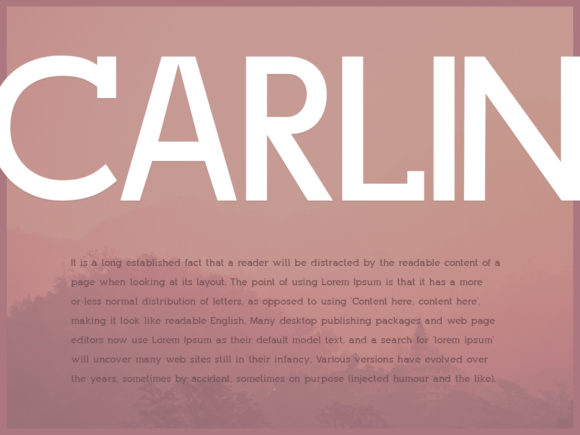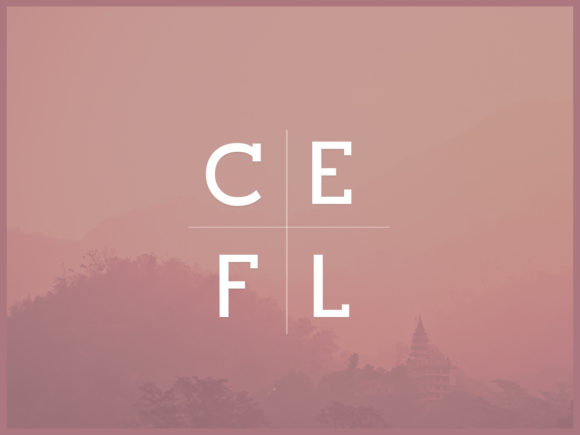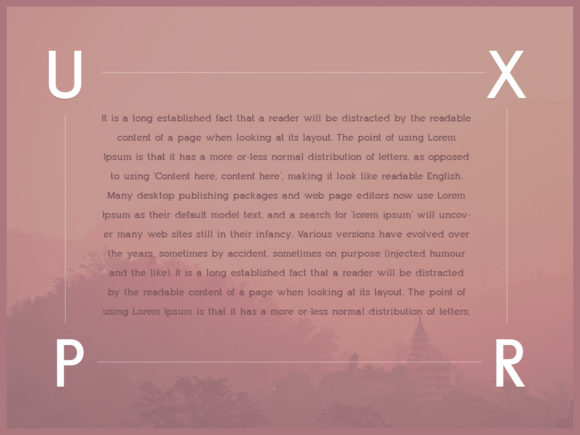
Introducing Carlin Font: The Ultimate Display Font for Bold Designs
Are you tired of using the same old fonts in your designs? Look no further than Carlin Font, a cool, bold, and imposing display font that’s sure to elevate your creations to the next level. With its unique and striking appearance, Carlin Font is an incredible asset to any font library, and we’re excited to dive into its features and benefits.
The Power of Carlin Font
Carlin Font is a display font that’s designed to make a statement. Its bold and imposing style makes it perfect for headlines, titles, and any other design element where you want to grab attention. But what sets Carlin Font apart from other display fonts is its versatility. Whether you’re working on a logo, brochure, or website, Carlin Font can be used to add a touch of sophistication and style.
Key Features of Carlin Font
• Bold and Imposing Style: Carlin Font’s bold and imposing style makes it perfect for designs where you want to make a statement.
• Versatile: Carlin Font can be used for a wide range of design projects, from logos and brochures to websites and more.
• Unique and Striking Appearance: Carlin Font’s unique and striking appearance sets it apart from other display fonts.
• Easy to Read: Despite its bold style, Carlin Font is easy to read, making it perfect for designs where you want to communicate a message clearly.
Why Designers and Crafters Love Carlin Font
So, why do designers and crafters love Carlin Font? For starters, its bold and imposing style makes it perfect for designs where you want to grab attention. Additionally, its versatility means that it can be used for a wide range of design projects, from logos and brochures to websites and more. But what really sets Carlin Font apart is its ability to elevate any design. Whether you’re working on a simple logo or a complex website, Carlin Font can be used to add a touch of sophistication and style.
How to Use Carlin Font in Your Designs
Using Carlin Font in your designs is easy. Here are a few tips to get you started:
• Use it for Headlines and Titles: Carlin Font is perfect for headlines and titles, where you want to grab attention and make a statement.
• Pair it with Other Fonts: Carlin Font can be paired with other fonts to create a unique and striking design.
• Experiment with Different Colors: Carlin Font looks great in a wide range of colors, so don’t be afraid to experiment and find the perfect color for your design.
In conclusion, Carlin Font is a cool, bold, and imposing display font that’s sure to elevate your designs to the next level. With its unique and striking appearance, versatility, and ease of use, Carlin Font is an incredible asset to any font library. Whether you’re a designer or crafter, Carlin Font is a must-have font that’s sure to inspire your creativity and take your designs to new heights.
What is Carlin Font?
Carlin Font is a cool, bold, and imposing display font that’s perfect for designs where you want to make a statement.
What is Carlin Font used for?
Carlin Font can be used for a wide range of design projects, from logos and brochures to websites and more.
Is Carlin Font easy to read?
Yes, despite its bold style, Carlin Font is easy to read, making it perfect for designs where you want to communicate a message clearly.